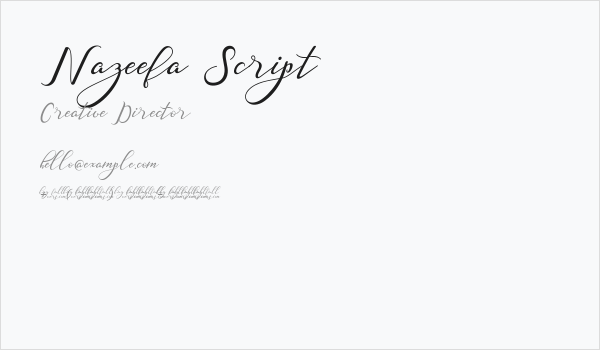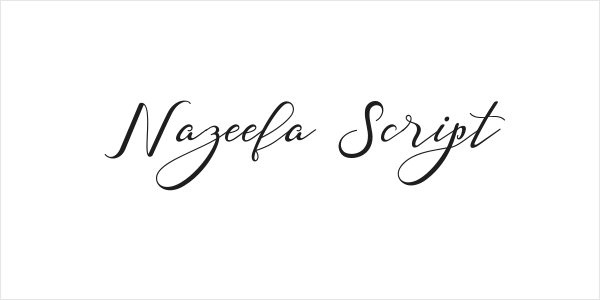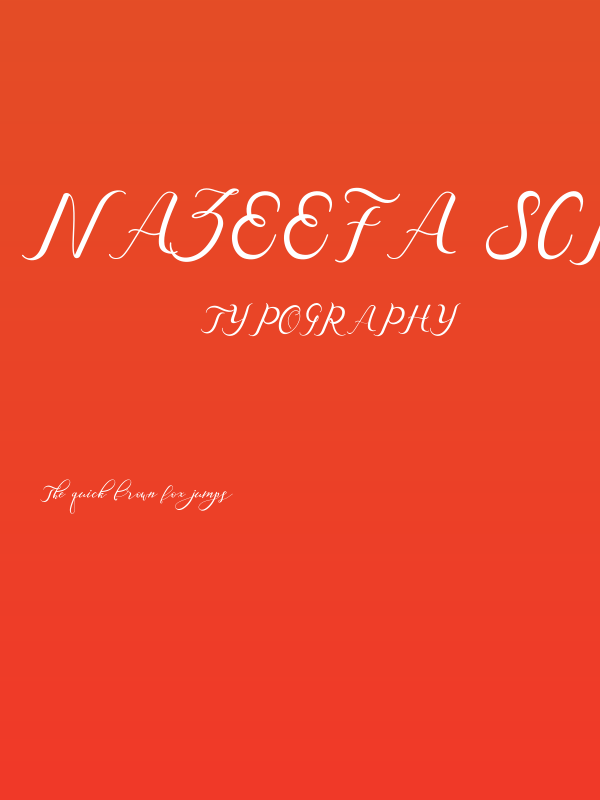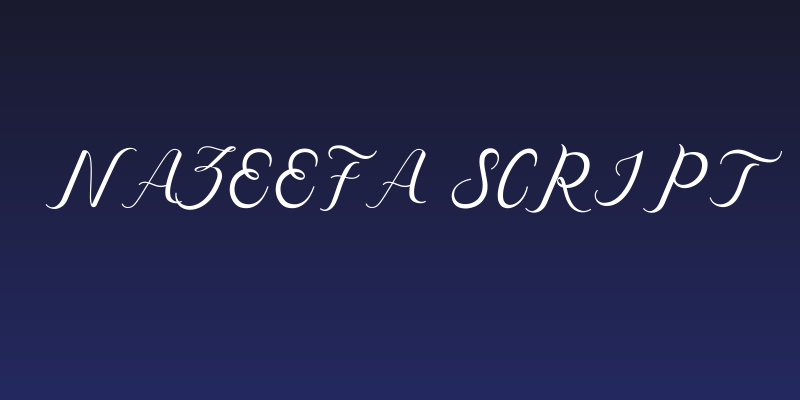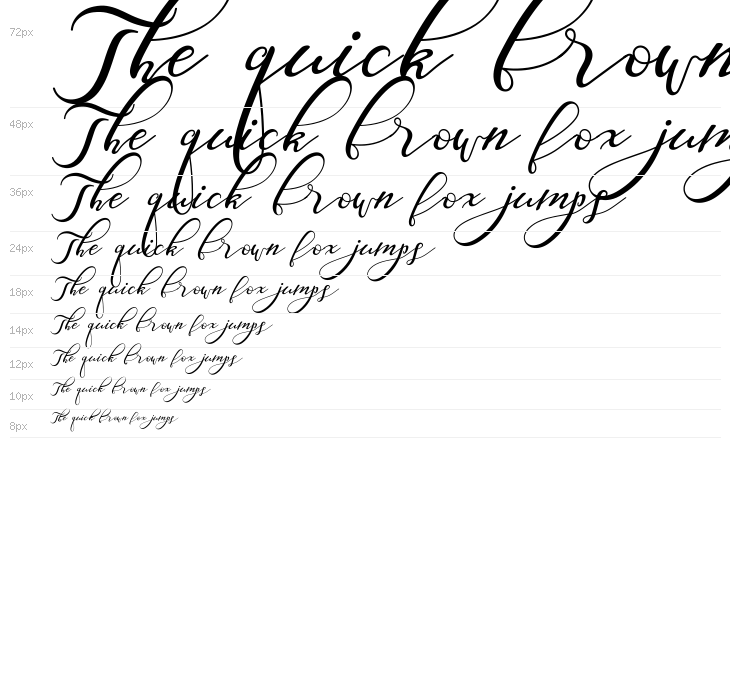
Nazeefa Script Font
Nazeefa Script Description
This elegant script font features fluid, flowing strokes that mimic the natural motion of handwriting. The uppercase letters are gracefully elongated, with sweeping curves and delicate loops that add a touch of sophistication. The lowercase letters maintain a consistent style, with smooth connections and a slight slant that enhances readability. The numerals and special characters are designed with the same attention to detail, ensuring a cohesive look across all text. This font's intricate design is perfect for adding a personal, artistic flair to any project.
| Proposed Projects | Ideal for wedding invitations, greeting cards, branding, and elegant packaging designs. |